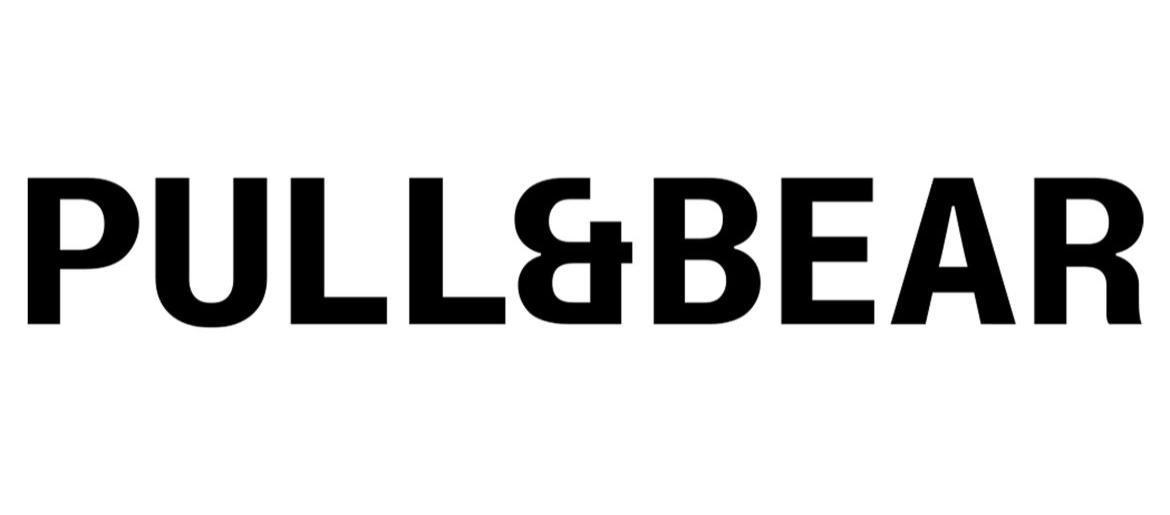
Pull & Bear Font
What Font is Pull & Bear?
Pull & Bear Font closely resembles Neue Helvetica Pro 77 Condensed Bold, with the “&” symbol matching Univers Next Pro 730 Basic Heavy. Both of these are commercial fonts, but free alternatives are available that capture a similar clean, modern aesthetic. The typography reflects Pull & Bear’s youthful and urban identity—minimal yet expressive, making it ideal for lifestyle and fashion-related design projects.
About Pull & Bear
Pull & Bear is a Spanish clothing and accessories brand founded in 1991 and owned by the Inditex Group, which also manages Zara and Bershka. Aimed primarily at young adults, the brand focuses on casual, trendy, and comfortable fashion inspired by global streetwear and digital culture. Pull & Bear’s visual style embodies modern simplicity and relaxed sophistication, appealing to a creative and energetic audience.